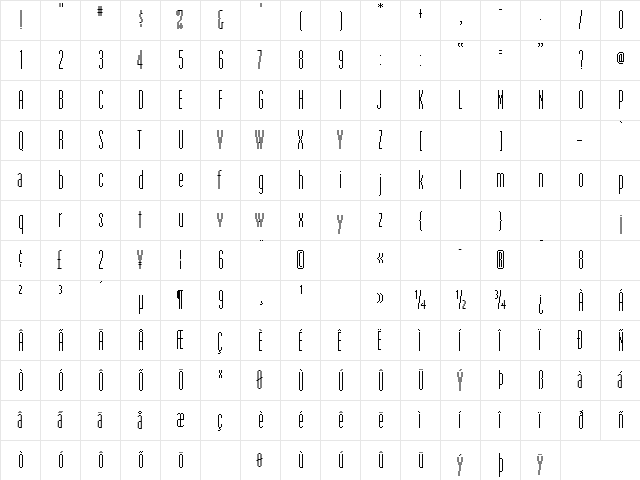
EmperorNineTeen Regular
Design Context for EmperorNineTeen Typeface
EmperorNineTeen is a composed and adaptable typeface that performs quietly and consistently across a wide range of design contexts.